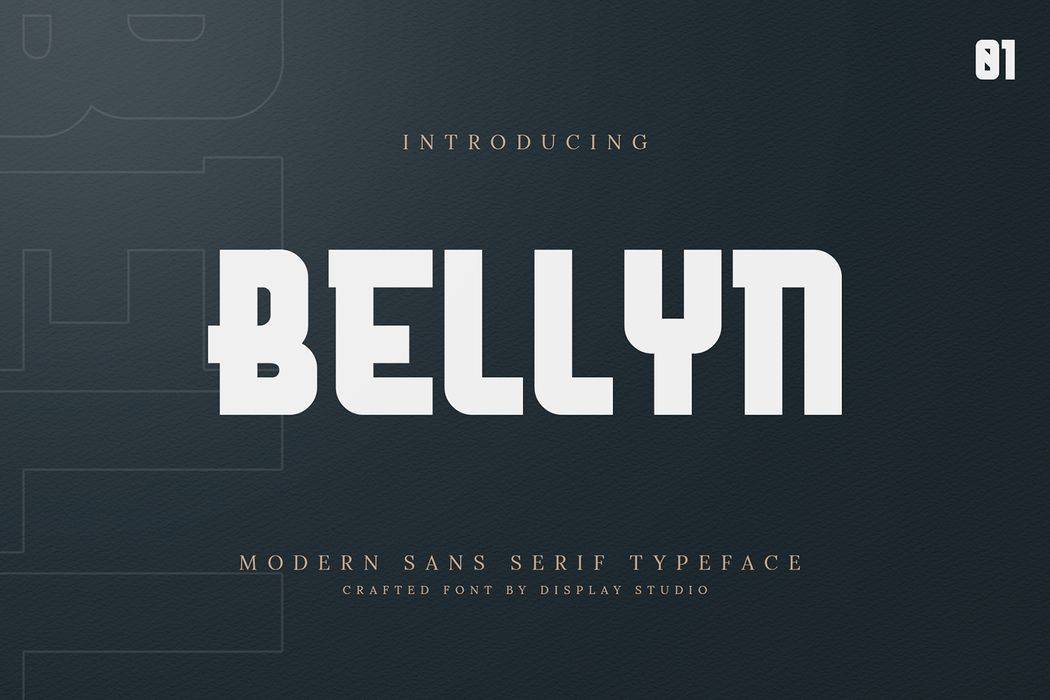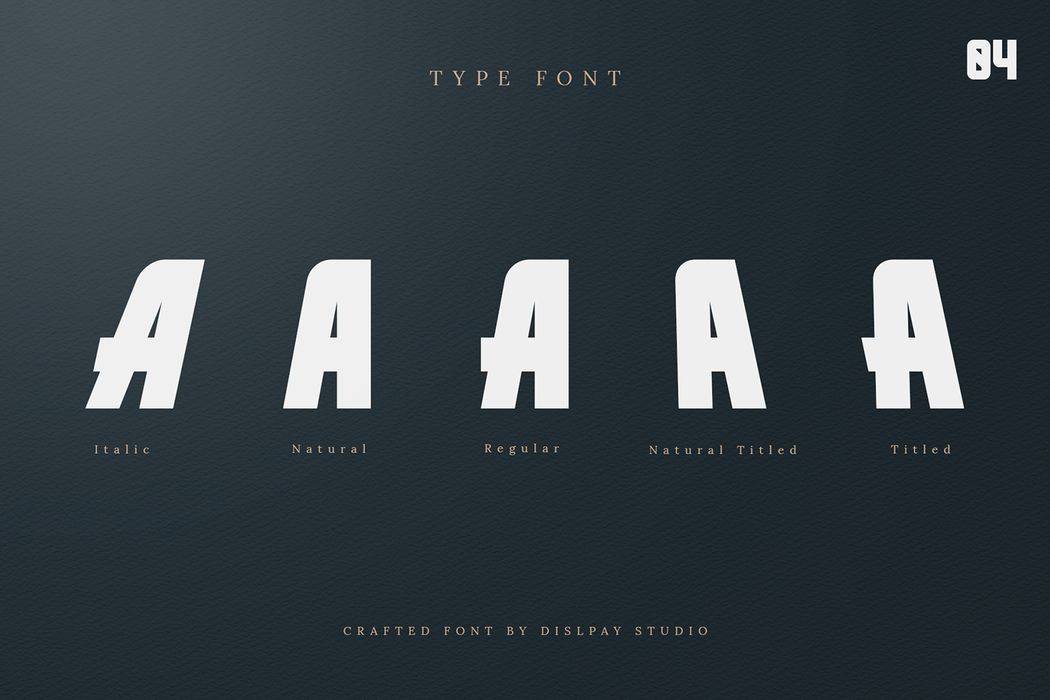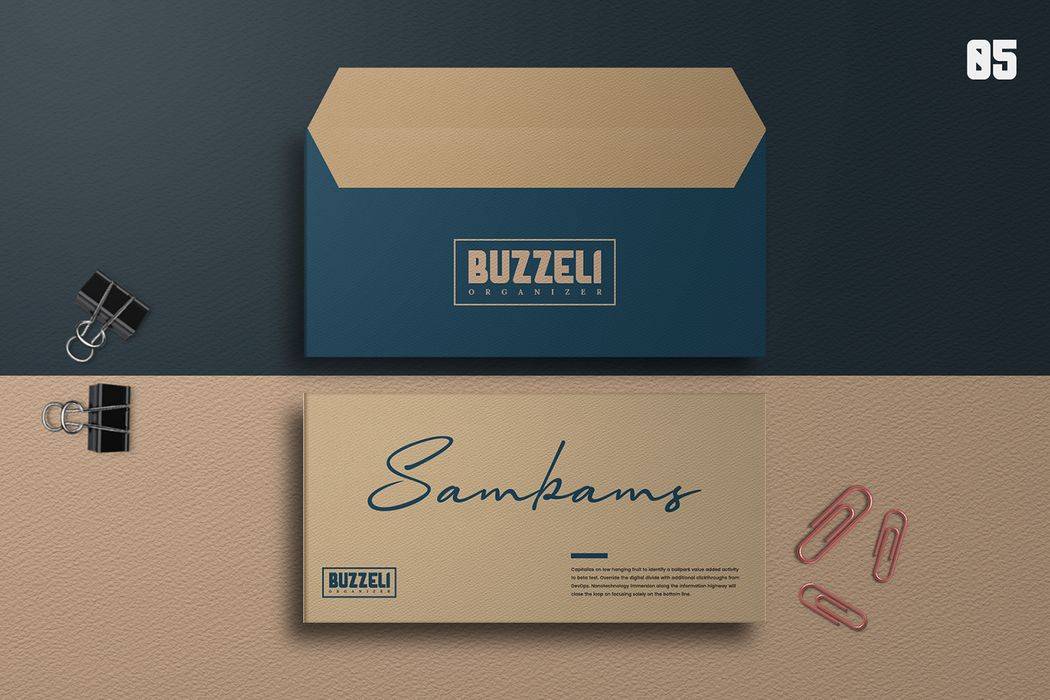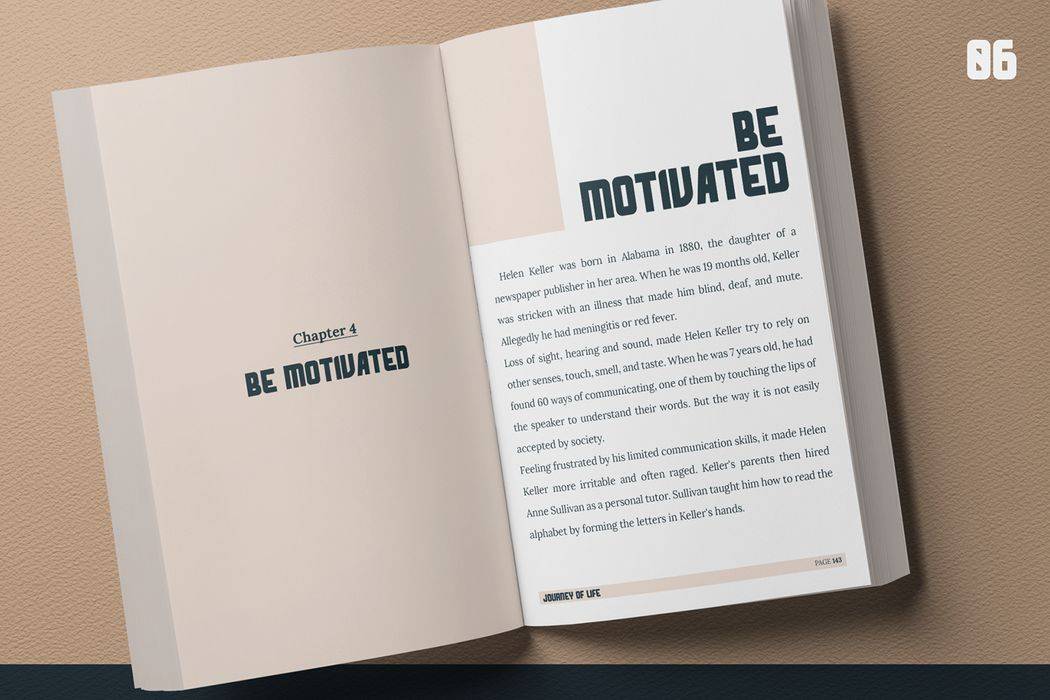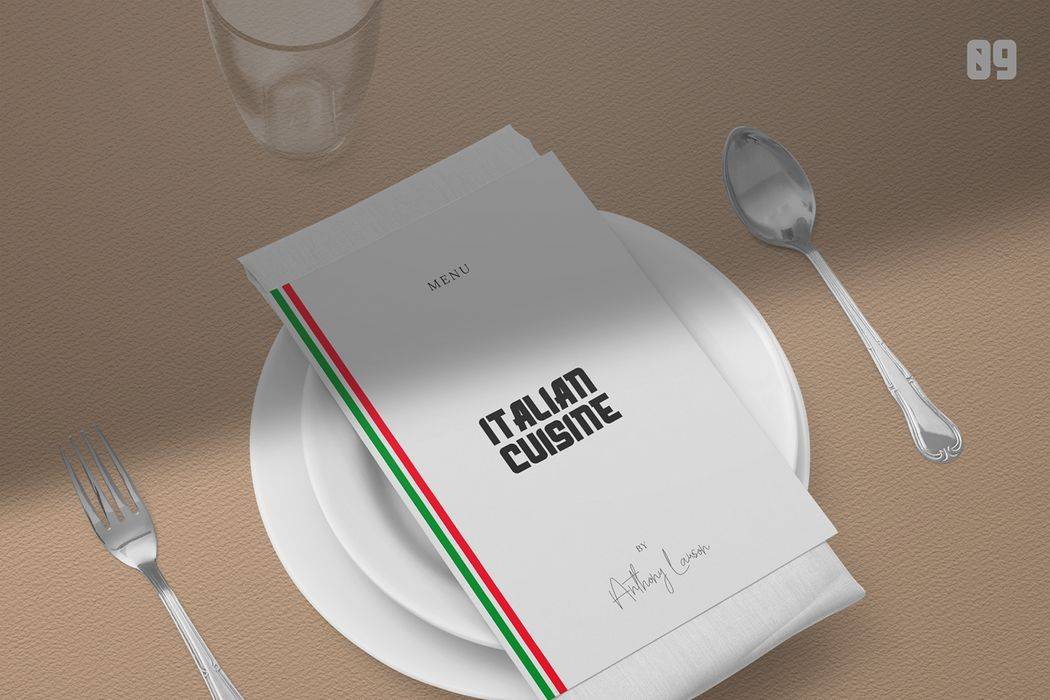
Bellyn is a bold, condensed sans serif font with a strong, geometric structure that gives it a modern and impactful look. Its uniform stroke weight and squared shapes create a sturdy, confident feel, making it ideal for eye-catching headlines, logos, and branding that demand presence and clarity. This font works well in designs aiming for a contemporary, industrial, or tech-inspired vibe.
Bellyn Font
About Bellyn Font
| Font family | Bellyn Font |